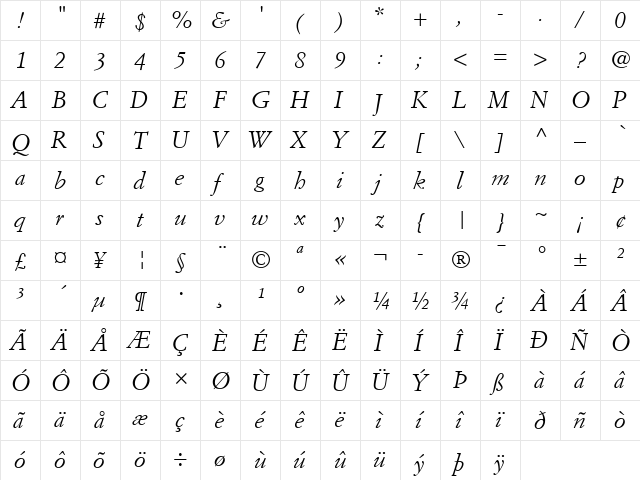
SimonciniGaramond LT Italic Regular Font Preview
Design Context for SimonciniGaramond LT Italic Typeface
SimonciniGaramond LT Italic offers clean, dependable letterforms without strong stylistic allegiance, making it a practical choice for designers who need flexibility. Its italic angle brings a sense of urgency and motion to the letterforms. Its slender proportions lend an understated elegance to any composition.
Pro Tip: Try SimonciniGaramond LT Italic for annotation and caption copy alongside an upright companion — the contrast in angle creates a dynamic but ordered typographic system.